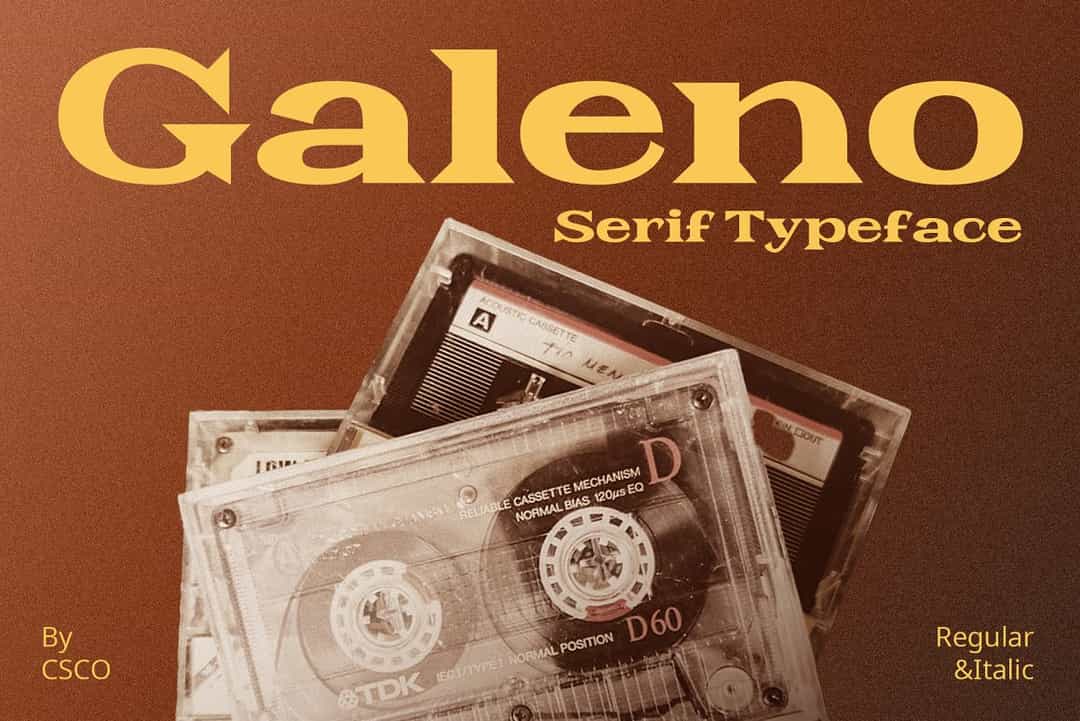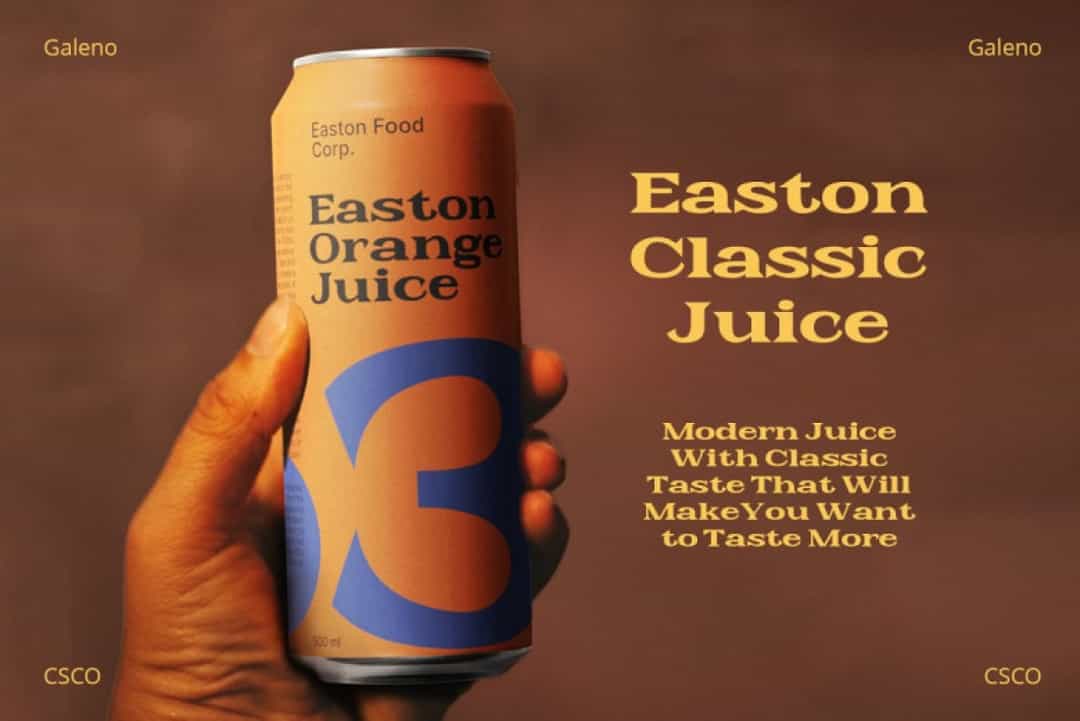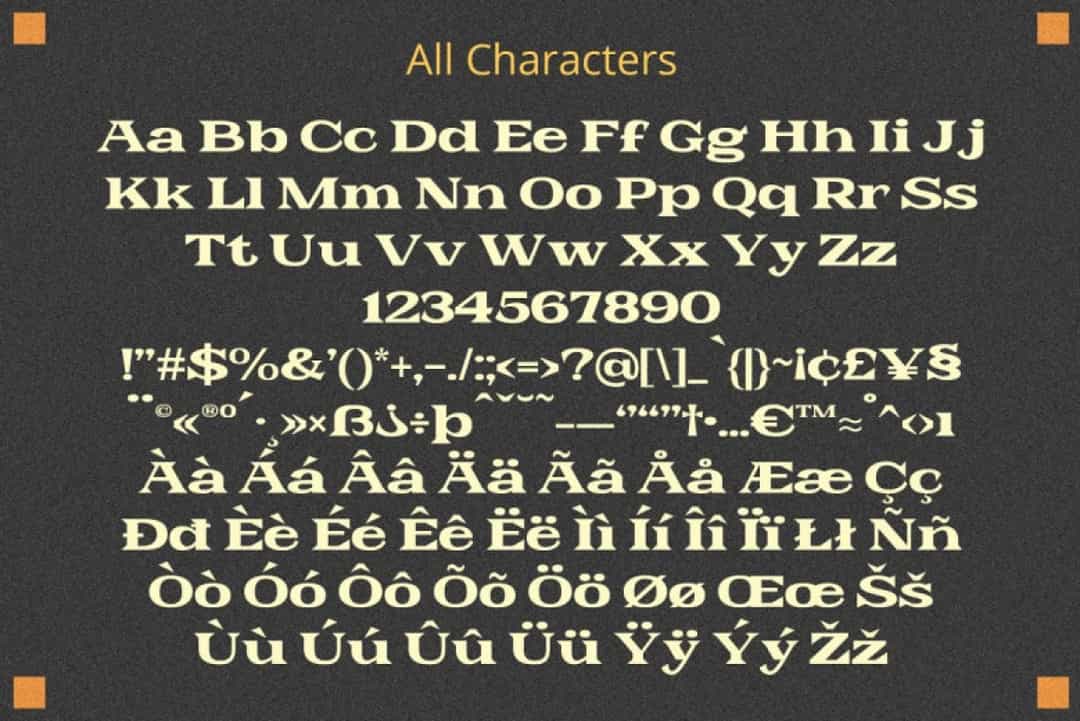
Discover Galeno Font, part of the Serif collection—a versatile and unique font perfect for adding a personal touch to your projects. Download it for free and enjoy crafting designs with style, from invitations to social media posts. This font is available exclusively for personal use, giving you the freedom to create without limits. Unlock your creativity with Galeno Font today!
The Galeno stands out due to its distinctive features. The font’s wide and sweeping design make it standout and powerful; wedged serifs add an impressive and unique appearance; its style can easily adapt to various designs offering flexibility and grace.